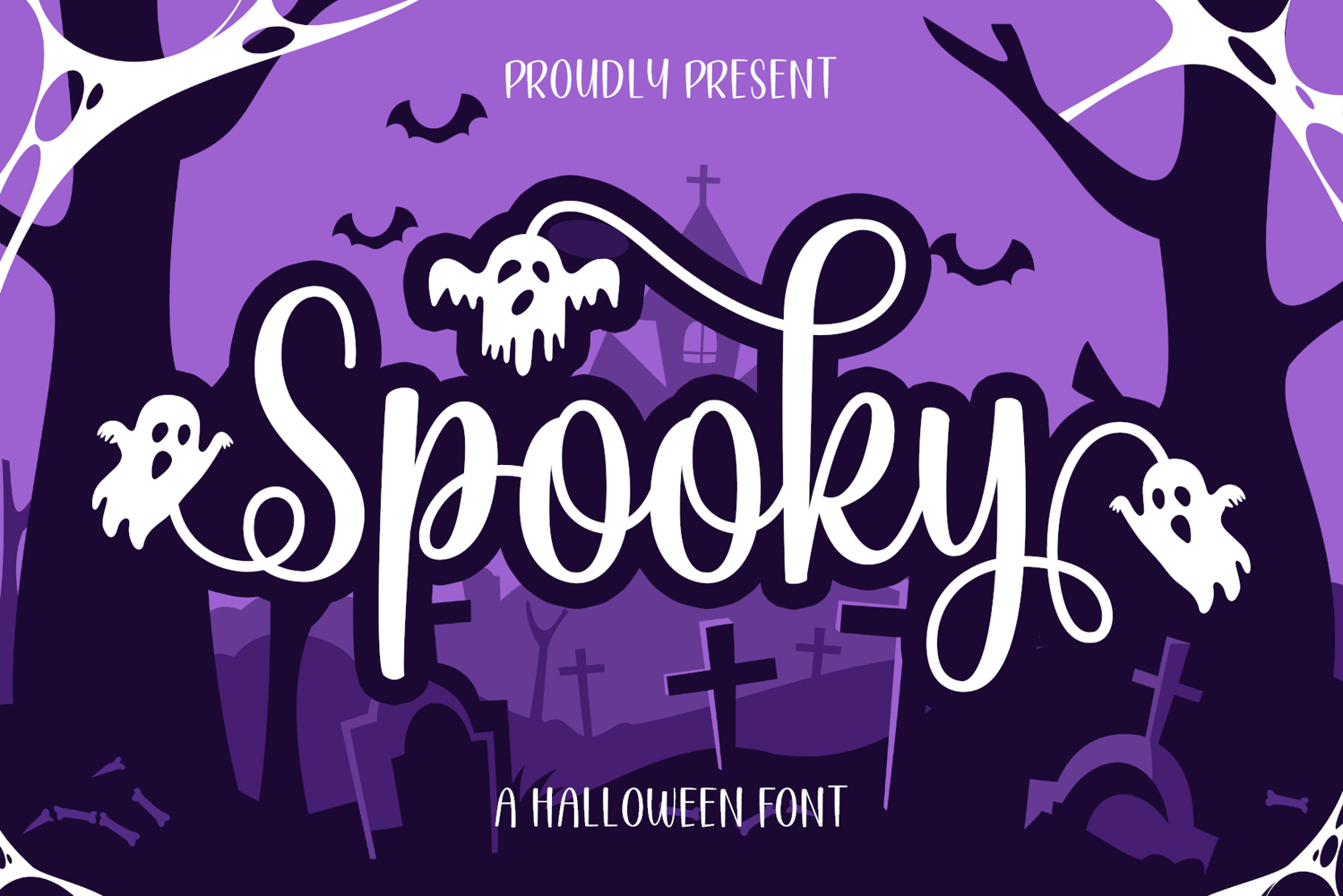
Spooky
Step into the magical world of Halloween with Spooky – a whimsically charming script font. This enchanting typeface brings playful eeriness to your projects, featuring a unique ghost-tail flourish. Perfectly suited to add that delightful dose of holiday spookiness, Spooky embodies the spirit of Halloween. Its handcrafted style beautifully merges the realms of the cute and the ominous, ensuring your designs stand apart! Bring your projects to life with the distinctive character of the Spooky font.
Spooky